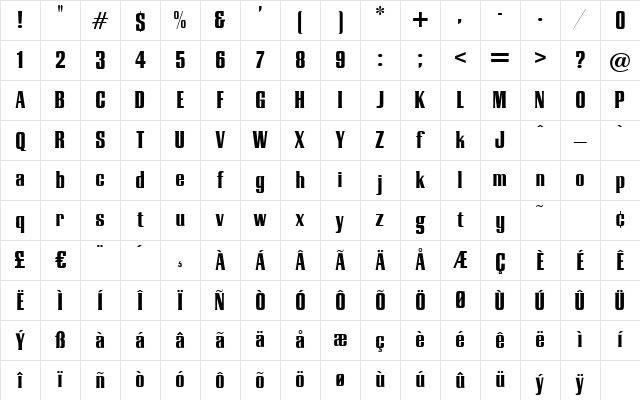
E831-Deco Regular
Complete E831-Deco Regular glyph index. Displaying only characters natively supported by E831-Deco Regular font.
Design Context for E831-Deco
E831-Deco is a composed and adaptable typeface that performs quietly and consistently across a wide range of design contexts.